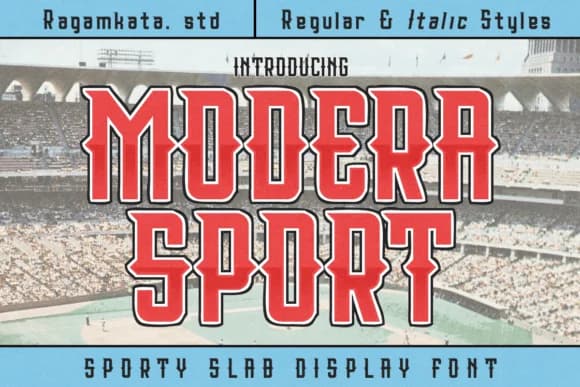
Modera Sport, designed by RagamKata Studio, channels the intensity of vintage athletic lettering through a bold slab-serif framework that reads as both strong and slightly weathered. The thick strokes and condensed proportions give each letterform an almost western-saloon sturdiness, ideal when you need type that feels like it's been used hard through multiple seasons and still holds power.
This typeface arrives in regular and italic styles, letting you shift between straightforward impact and angled dynamism depending on your layout approach. The OpenType stylistic sets add flexibility when you want to swap out glyphs for extra visual variation, and both upper and lowercase characters carry that authentic vintage aesthetic throughout the entire character set. You'll find it works particularly well for basketball league branding systems, athletic apparel hang tags, retro sports merchandise labels, and vintage baseball tournament posters. In these contexts, the font's worn and powerful personality feels genuinely right rather than merely decorative.
Modera Sport suits any designer building identity systems or marketing collateral for sports clubs, equipment brands, and athletic institutions that value a nostalgic edge without sacrificing legibility. Find it on Creative Fabrica when you're seeking a slab serif with genuine character and real grit built into every letterform.
Modera Sport Font is a slab serif font that shines as a display or heading face. Pair it with a clean sans-serif or serif font for body text — the contrast creates a clear hierarchy while the two styles stay balanced and easy to read.